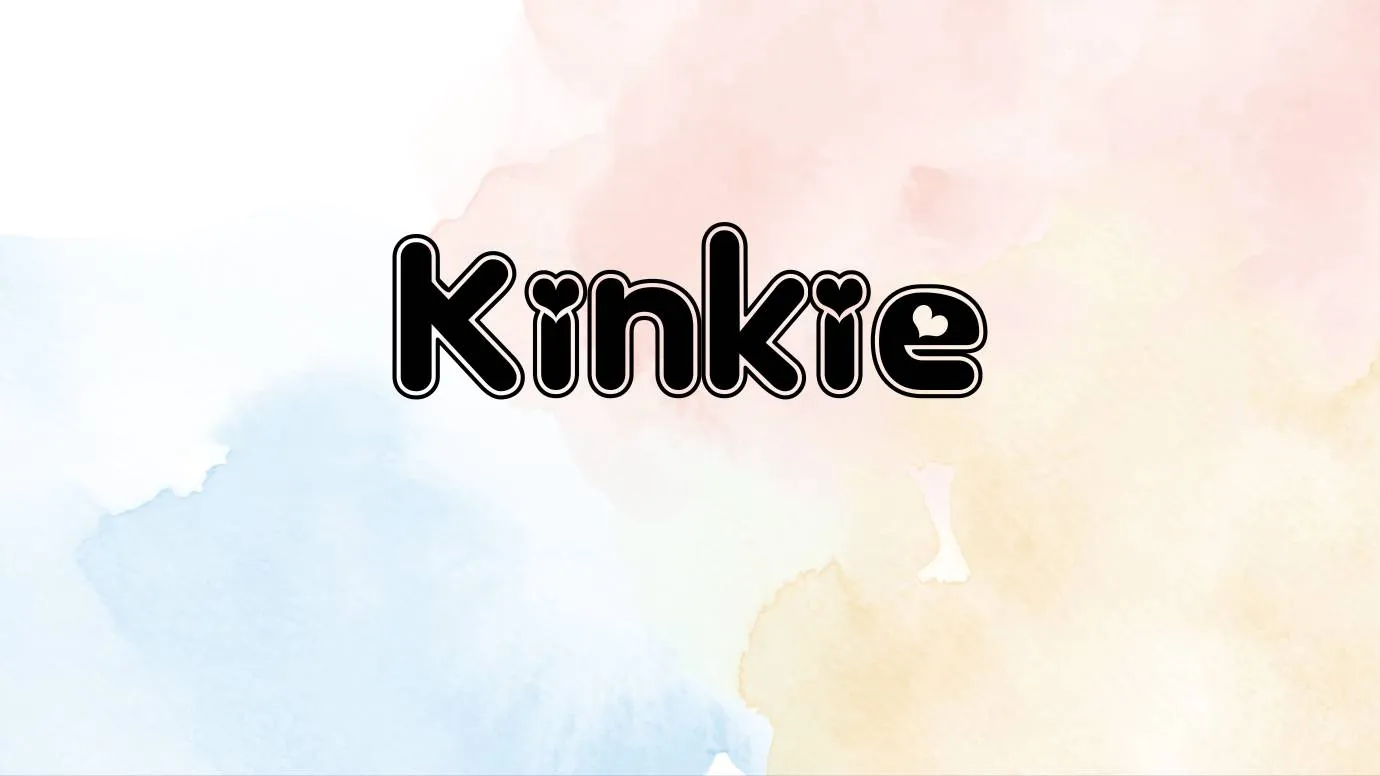
Kinkie Font Family
Kinkie Font Family is a very attractive and interesting loveable font. It was designed by Fontalicious in 1999. The look of this font is very unique with a bold weight and outline outside all the characters with a heart shape of the alphabet ā€œIā€ and ā€œEā€ which makes it more romantic and unique.
Kinkie Font